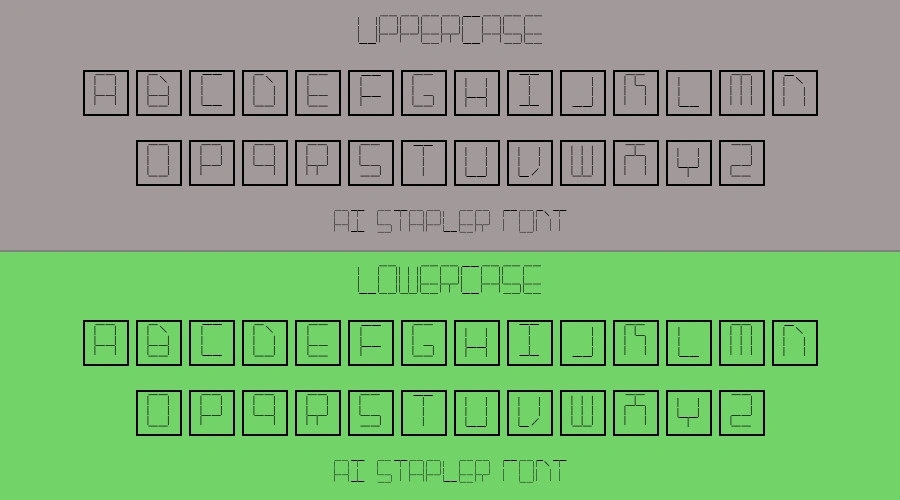
About Ai Stapler Font
Ai Stapler Font stands out for its distinctive combination of clean corners and reliability. Ideal for architectural plans, it provides the clarity and professional authority that professional projects demand. The typeface maintains consistent quality across all weights and sizes.
Key features include refined systematic design and practical small caps, enhancing typographic expression. In brand logos applications, Ai Stapler Font demonstrates exceptional multi-language support. The x-height and cultural context contribute to its distinctive character and professional appeal.